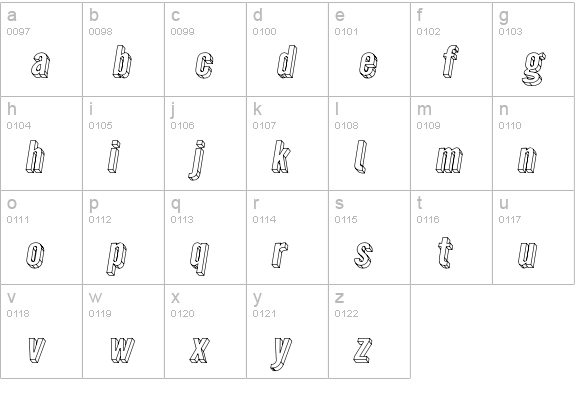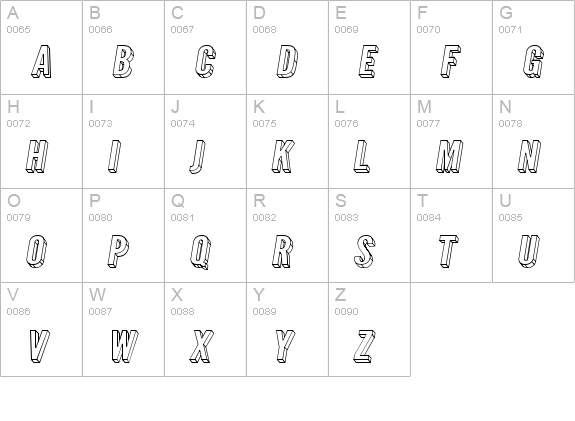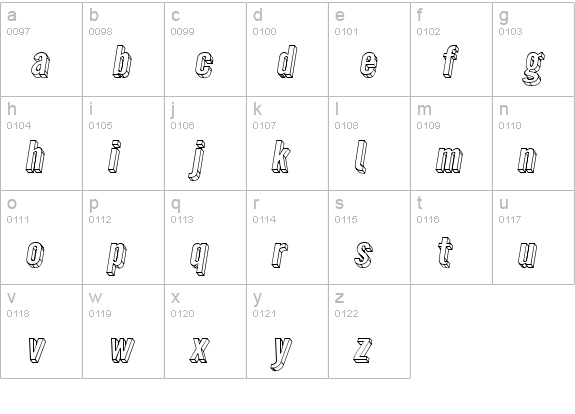
Warsaw Gothic Extended 3D Oblique is a distinctive, extended-width, italic variant in the Warsaw typeface family \xE2\x80\x94 well suited to design and typography projects.
The Warsaw Gothic Extended 3D Oblique font is a stunning display typeface that effortlessly combines gothic aesthetics with a modern twist. Its bold and sharp letterforms are enhanced with three-dimensional effects, creating a visually striking and impactful design. This font is perfect for adding a touch of edginess to any project, whether it's a logo, poster, website, or branding materials. The slanted and distorted angles give the text a sense of movement and depth, making it stand out and catch the eye of viewers. Not only does the Warsaw Gothic Extended 3D Oblique font possess a unique and captivating style, but it is also incredibly versatile. It can be used for both large headlines and smaller body text, ensuring that every piece of text in your project maintains a cohesive and eye-catching look. One of the most remarkable aspects of this font is that it is freely available to download at FontsMarket.com. This means that you can easily access and use it in your designs without any restrictions or limitations. Whether you are a professional designer looking to add a touch of creativity to your work or an enthusiast looking to experiment with different fonts, the Warsaw Gothic Extended 3D Oblique font is an excellent choice. So, unleash your creativity and bring your designs to life with the captivating and free Warsaw Gothic Extended 3D Oblique font. Download it today from FontsMarket.com and elevate your projects to a whole new level of visual impact and style.